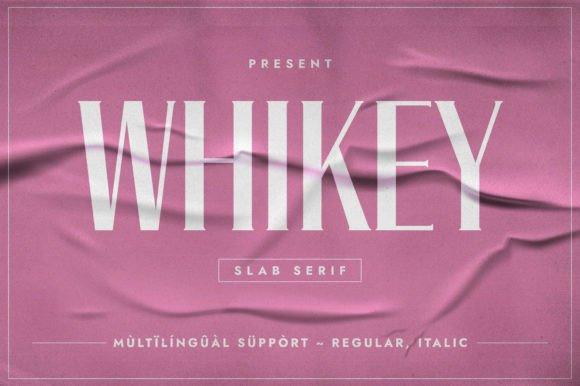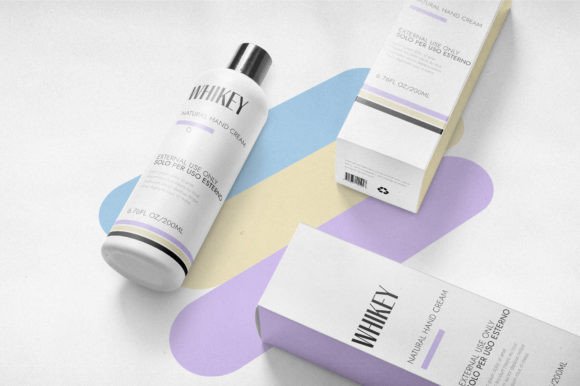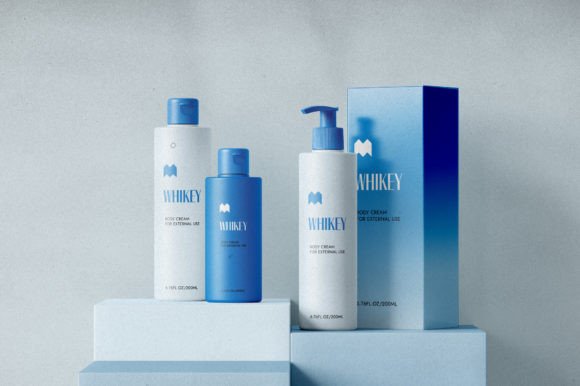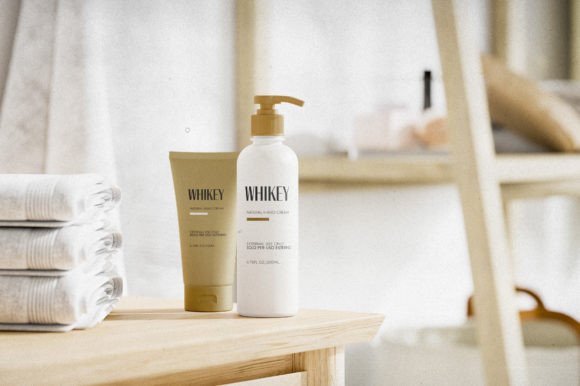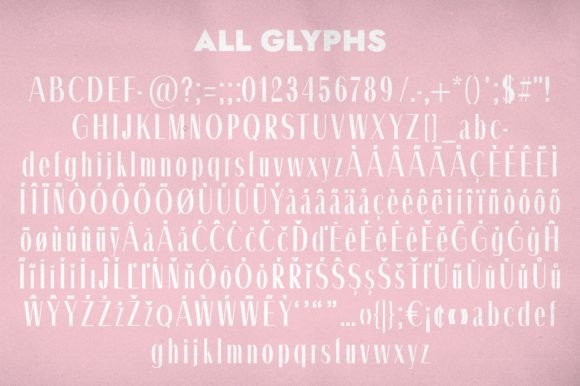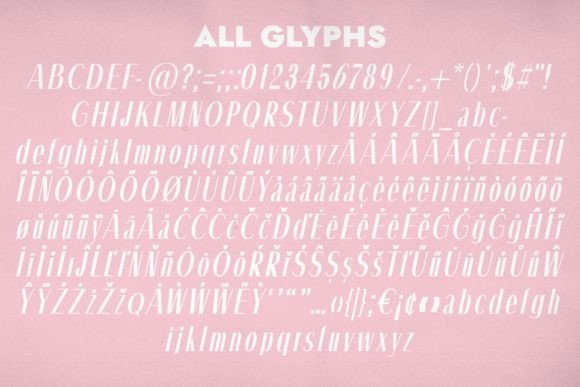
Whikey Font
Whikey: An Elegant High-Contrast Slab Serif Typeface
Whikey is an elegant bold and high-contrast slab serif typeface. With its amazing glyph construction, it’s perfect for elegant themes and projects that need both a clean touch and attention-grabbing elements. Use it confidently in your creations to achieve marvelous results.
Key Features of Whikey
• High Contrast: Features striking variations between thick and thin strokes.
• Bold Design: Offers strong, impactful letterforms.
• Elegant Style: Brings sophistication to designs.
• Clean Touch: Maintains clarity despite bold features.
Best Uses for Whikey
Thanks to its unique characteristics, Whikey works especially well for:
When using Whikey in your designs, keep these tips in mind:
• Try it for headlines or display text to showcase its high contrast features.
• Use different sizes to highlight its elegant details.
• Let its bold characteristics grab attention while maintaining elegance.
• Take advantage of its clean style for sophisticated layouts.
To sum up, Whikey is an excellent choice for designers seeking an elegant, bold, and high-contrast slab serif typeface. Its amazing glyph construction makes it perfect for projects that need to balance sophistication with visual impact. Whether you’re creating elegant themes or developing attention-grabbing designs, Whikey offers the perfect blend of refinement and boldness.
Furthermore, Whikey’s distinctive design allows it to shine in contexts where both elegance and impact are key. For instance, from luxury branding to premium materials, this font can elevate your projects with its sophisticated style. Also, its high-contrast appearance works particularly well in designs that aim to make a refined yet bold statement.
In conclusion, Whikey truly captures the essence of elegant design in slab serif typography. Its versatility across different applications shows how well it can serve various creative needs. Therefore, for those wanting to add a touch of sophisticated boldness to their work, Whikey can enhance any design with its unique style. Ultimately, it’s perfect for designers aiming to achieve marvelous results across elegant, attention-grabbing projects.